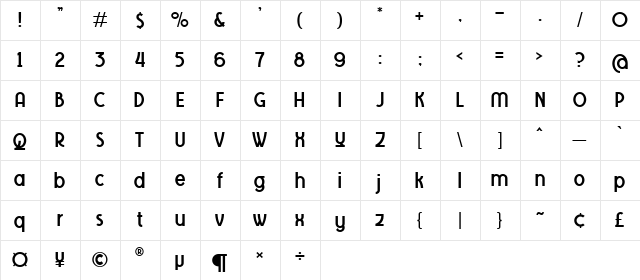
Tawakkal Sans Regular
| Foundry | Twicolabs Fontdation |
| Designer | Twicolabs Fontdation |
Design Context for Tawakkal Sans Typeface
Tawakkal Sans takes a measured approach to typography — its balanced proportions and neutral character make it a reliable workhorse for both digital and print work.